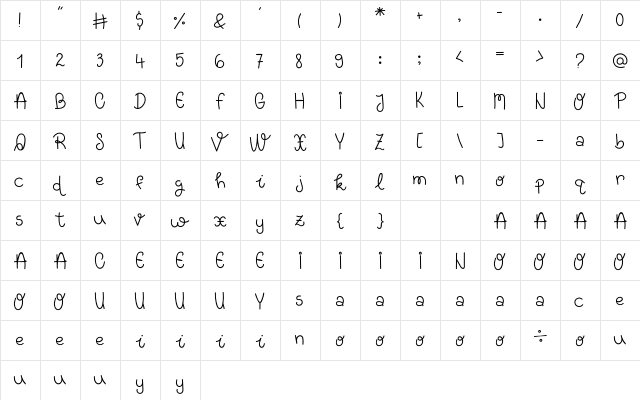
Yummy Burger Regular
| Designer | Karina Duca |
Design Context for Yummy Burger Typeface
Yummy Burger is a composed and adaptable typeface that performs quietly and consistently across a wide range of design contexts.